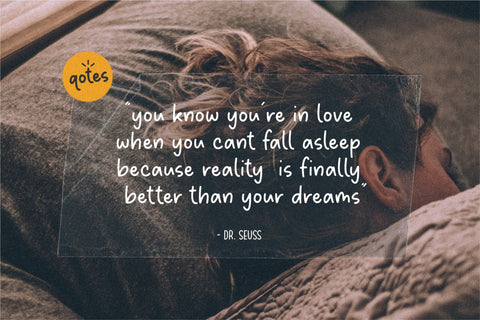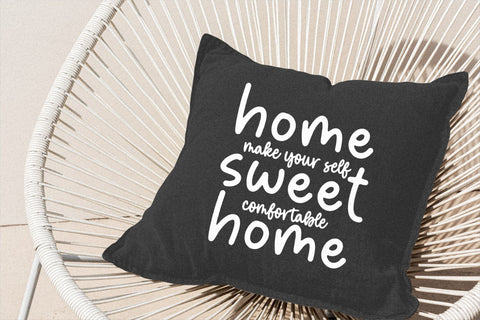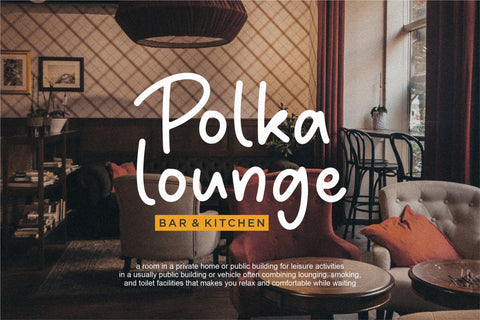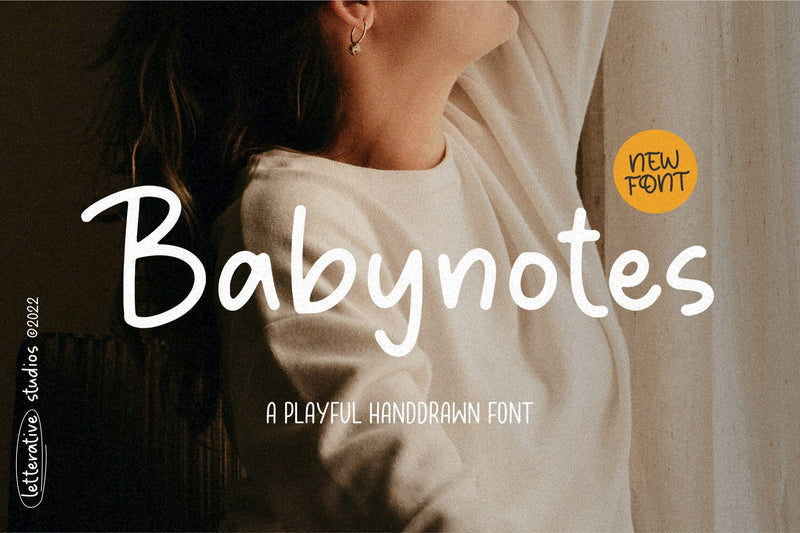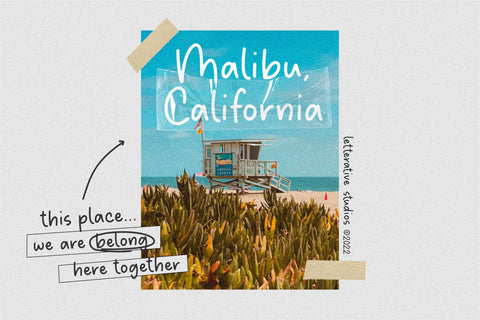
Babynotes Playful Handdrawn Font
Introducing by Letterative Studio : Babynotes Font
Babynotes is a Playful Handdrawn Font
Babynotes is a Playful Handdrawn font. Whether you’re using it for crafts, digital design, presentations, or making greeting cards, this font has the potential to become your favorite go-to font, no matter the occasion!